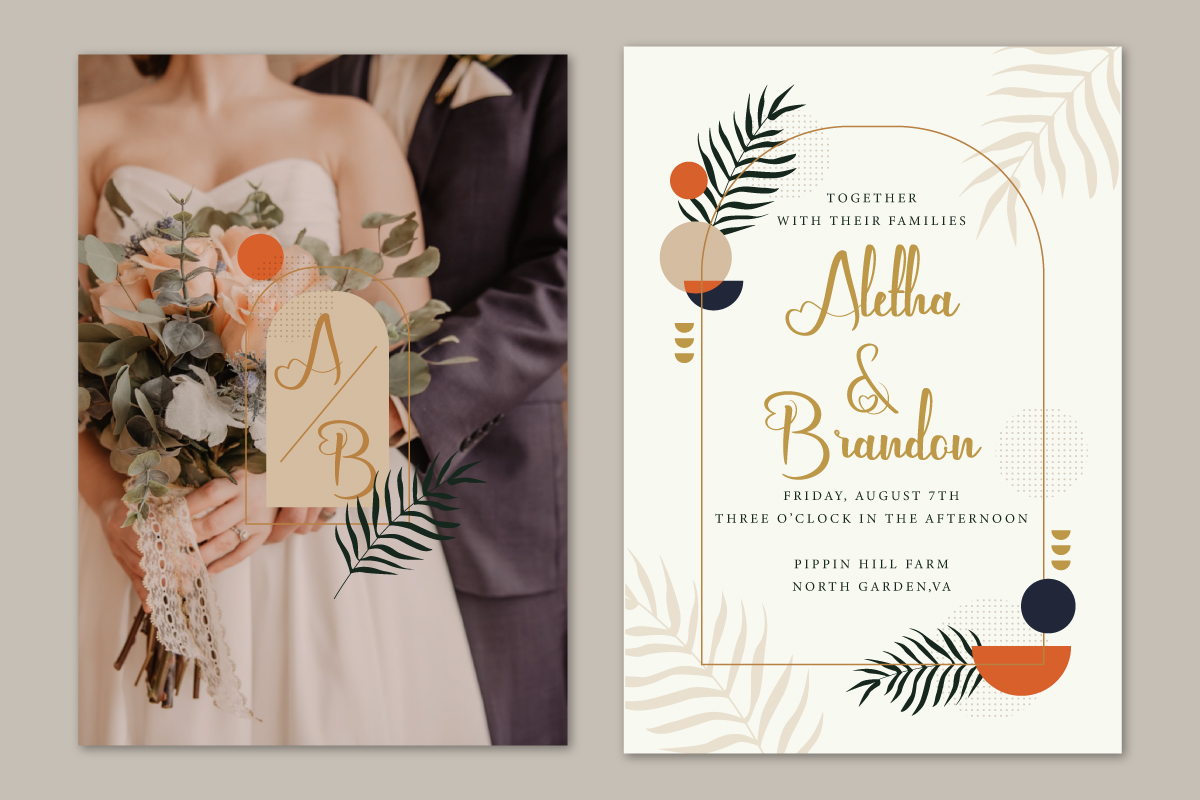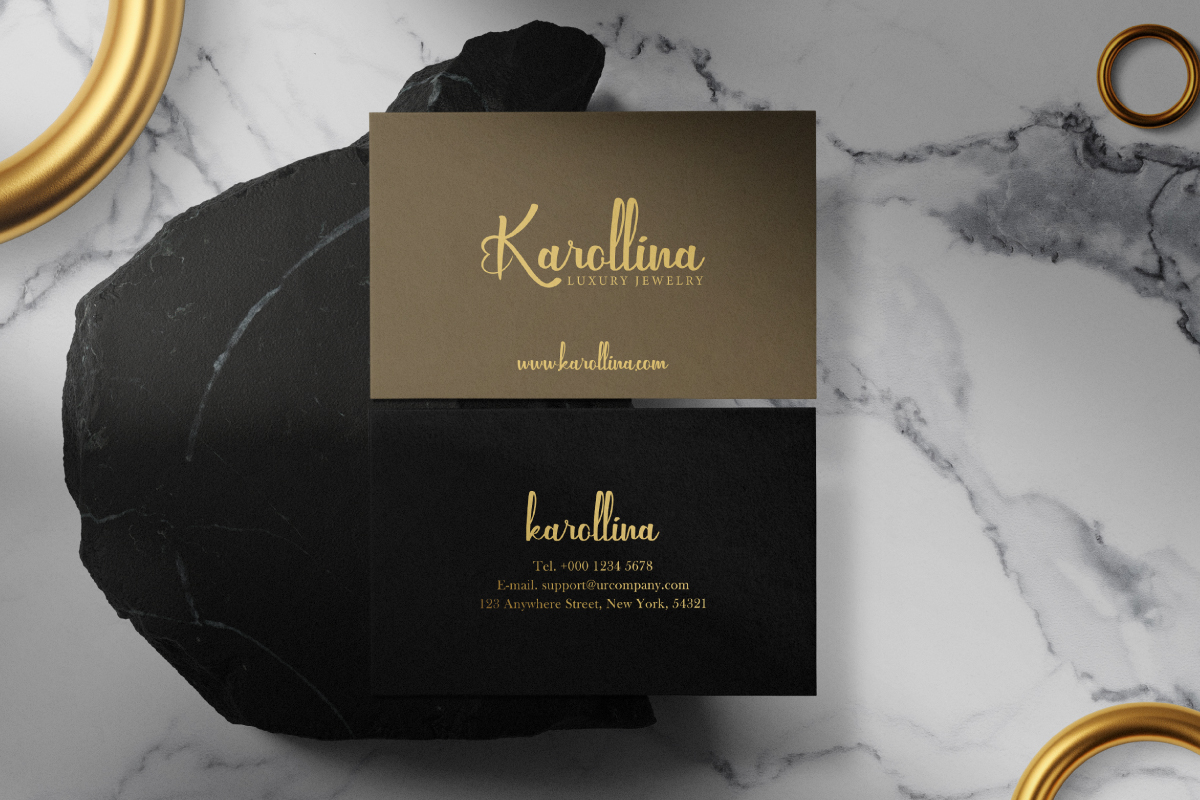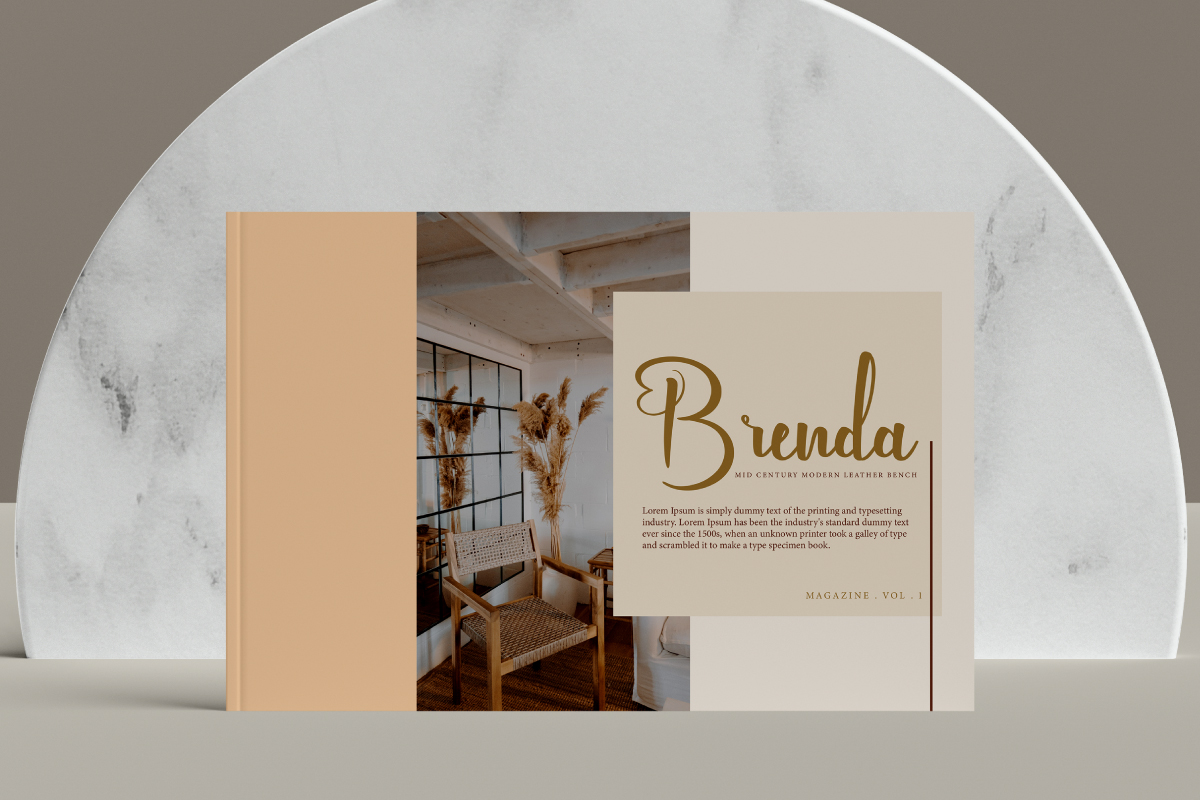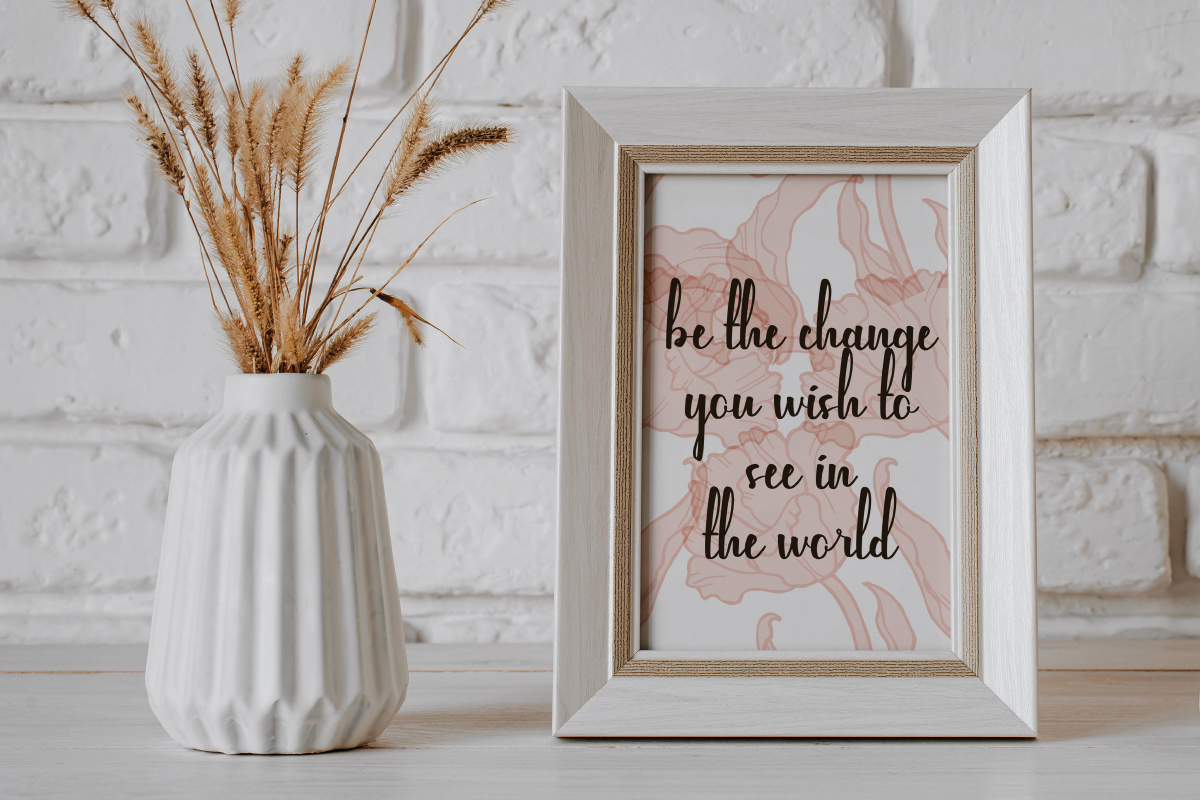
Seven Loves Font
Seven Loves Script Font
This is a beautiful and lovely script font with beautiful swashes and ligatures. It has a classy, elegant and modern look that can be used for business card, fashion brand, florist, headline, label, logos, quotes, stationery, wedding designs and much more!